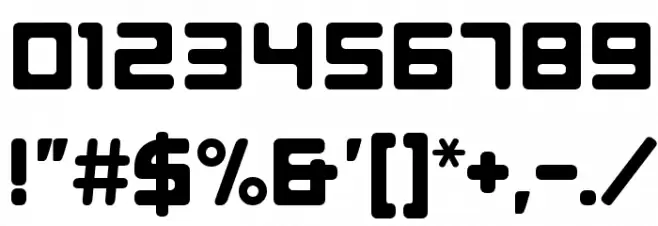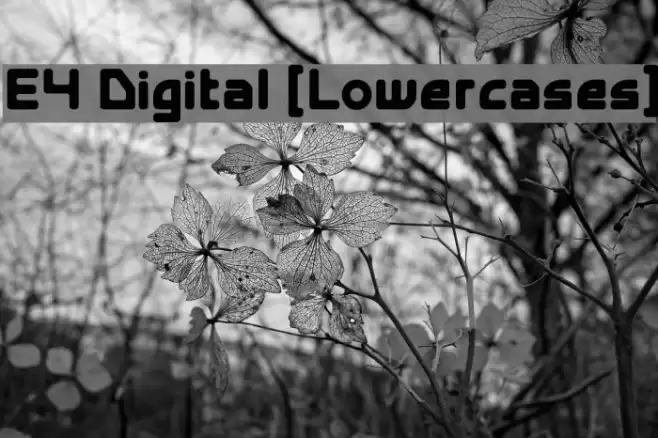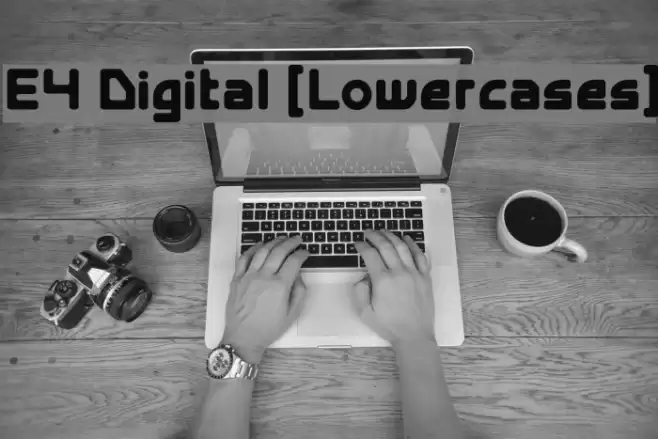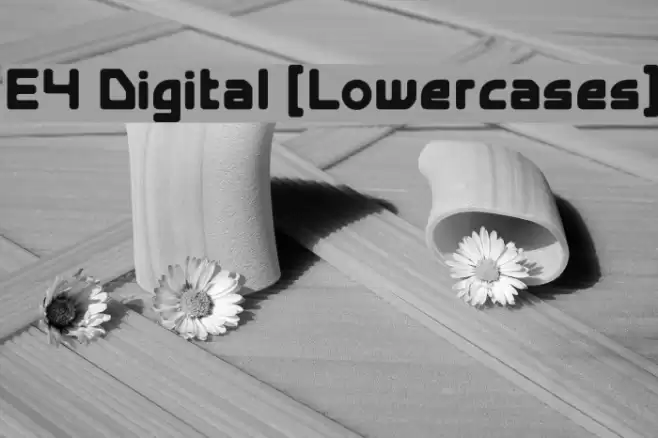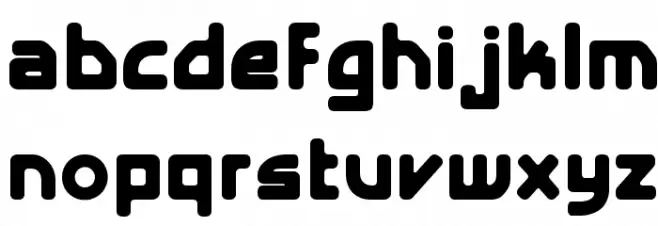
E4 Digital [Lowercases] Font
E4 Digital [Lowercases] Description
This font features a bold, geometric design with rounded edges, giving it a futuristic and digital appearance. The characters are uniformly thick, creating a consistent and cohesive look across both uppercase and lowercase letters. The numbers and special characters maintain the same style, ensuring a seamless integration in any text. The font's structure is clean and modern, making it suitable for digital displays and tech-related projects. Its boldness and rounded forms convey a sense of approachability and innovation.
A bold, geometric font with rounded edges, perfect for digital and tech themes from Uncategorized fonts.
- Proposed Projects: Ideal for digital interfaces, tech branding, video game graphics, and futuristic designs.
- Use Case: Headlines, Logos, Digital displays